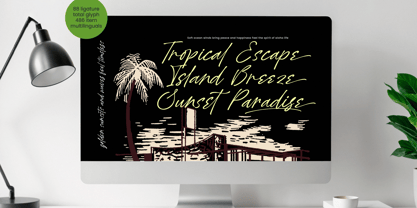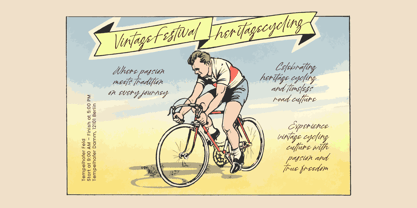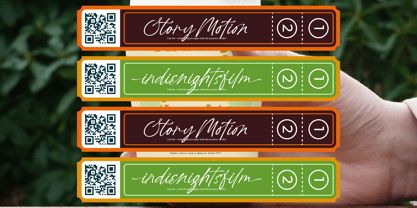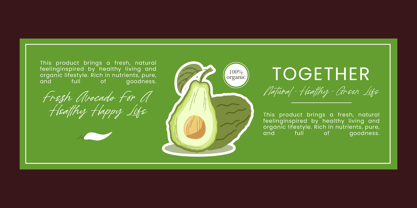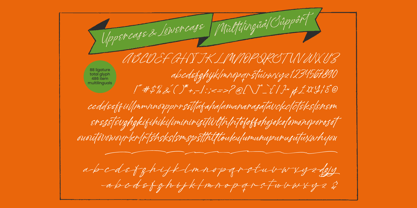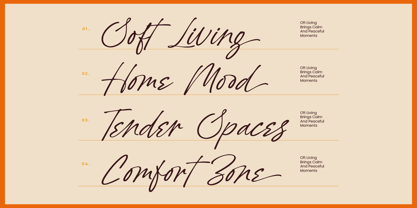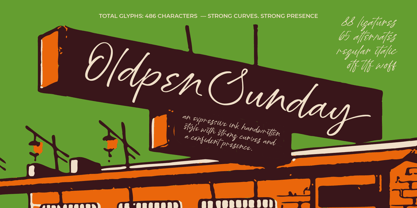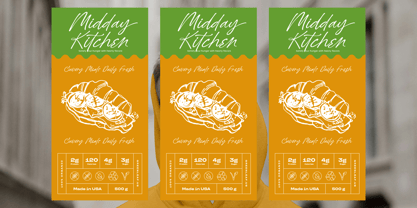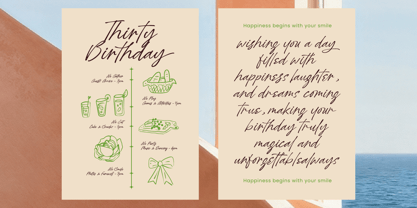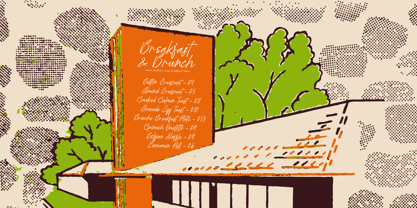
Oldpen Sunday
by Letterena Studios
The Oldpen Sunday Font Family was designed by Heru Utama Putra and published by Letterena Studios. Oldpen Sunday contains 2 styles and family package options. More about this family
Oldpen Sunday – Expressive Handwritten Font Oldpen Sunday is a bold and expressive ink handwritten font that combines strong curves with a confident, fluid presence. This font is designed to bring personality and life to your projects, with 88 ligatures, 65 alternates, and a range of beautiful characters that create a dynamic and inviting look. Perfect for branding, packaging, creative posters, or any project that calls for an elegant yet strong handwritten feel, Oldpen Sunday delivers a distinctive touch with its rich, artistic design. Available in regular, italic, and multilingual versions, this font is suitable for any design project that aims to stand out and leave a lasting impression.